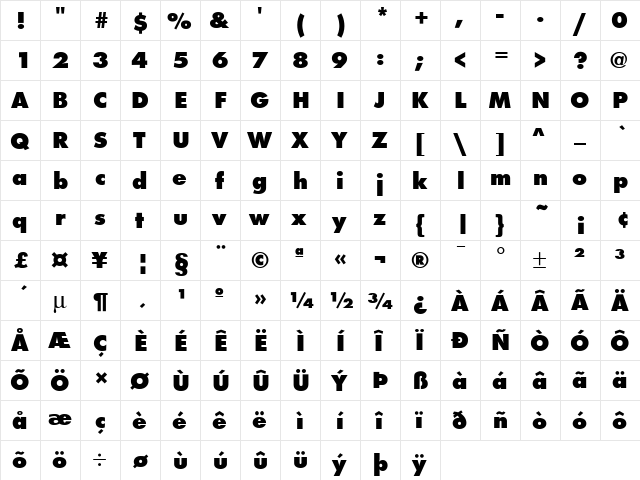
Futura T Extra Bold Regular Font Preview
Futura T Extra Bold Regular
Design Context for Futura T Extra Bold Typeface
Futura T Extra Bold has a distinctly futuristic character, with geometric precision and clean angles that feel at home in technology, gaming, and sci-fi contexts. Its bold stroke weight gives it real presence on the page.